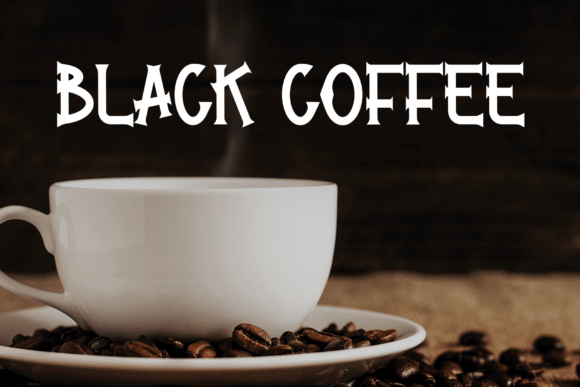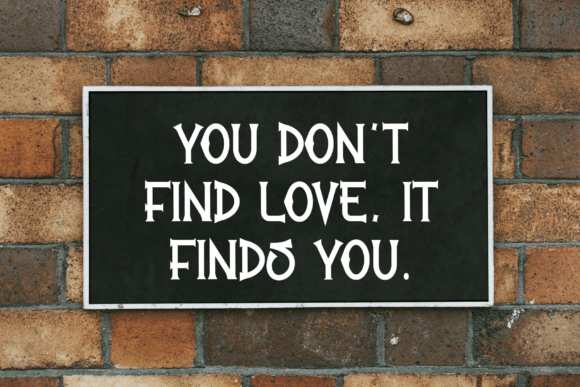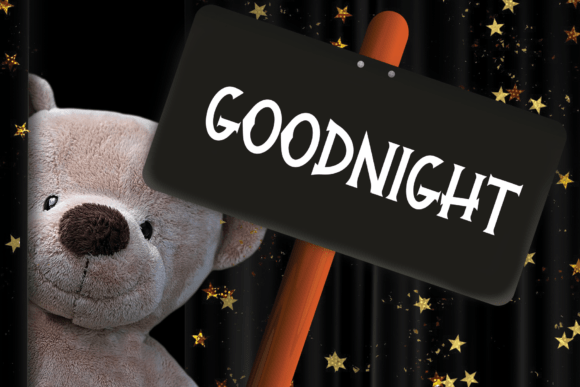
Introduction to Misting Font
Introducing the harmonious charm of this delightful handwritten display font.
With its delightful and affable character, this font captures the quintessence of sweetness Perfectly suited for conveying the intimate emotions on wedding invitations, it can grace your cards and uplift other designs with the right dash of fun.
Key Features of Misting Font
Why Choose Misting Font?